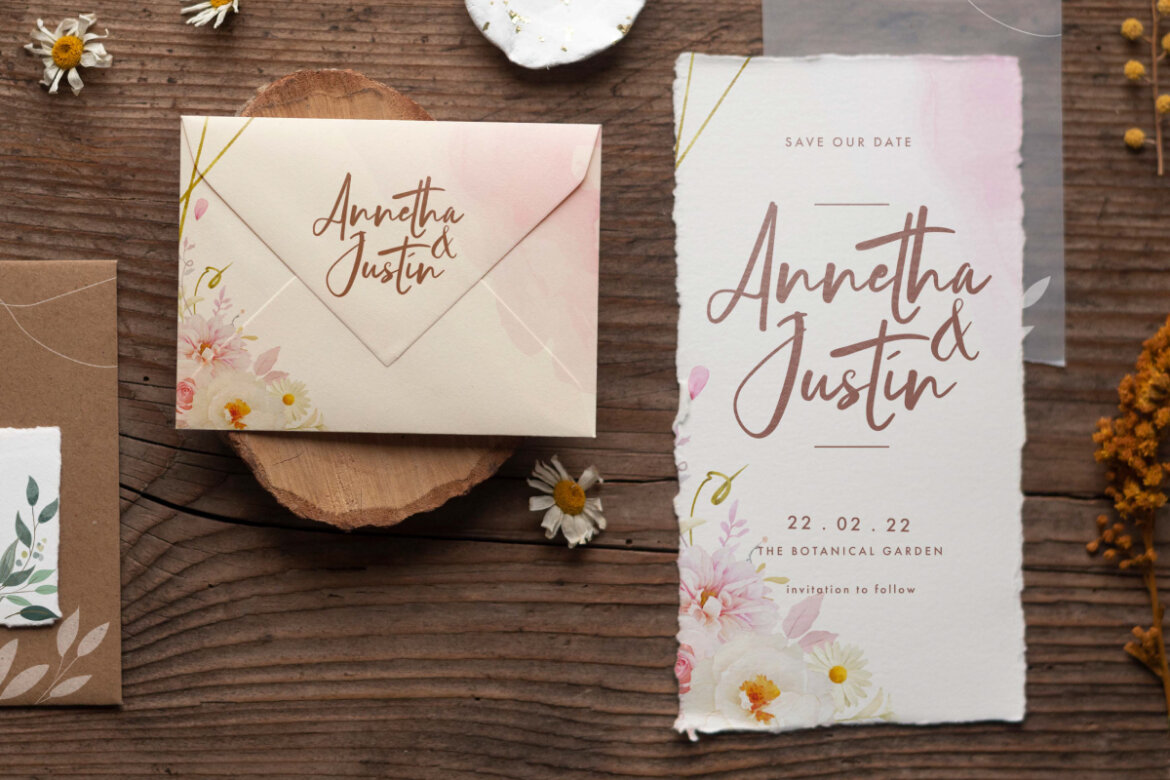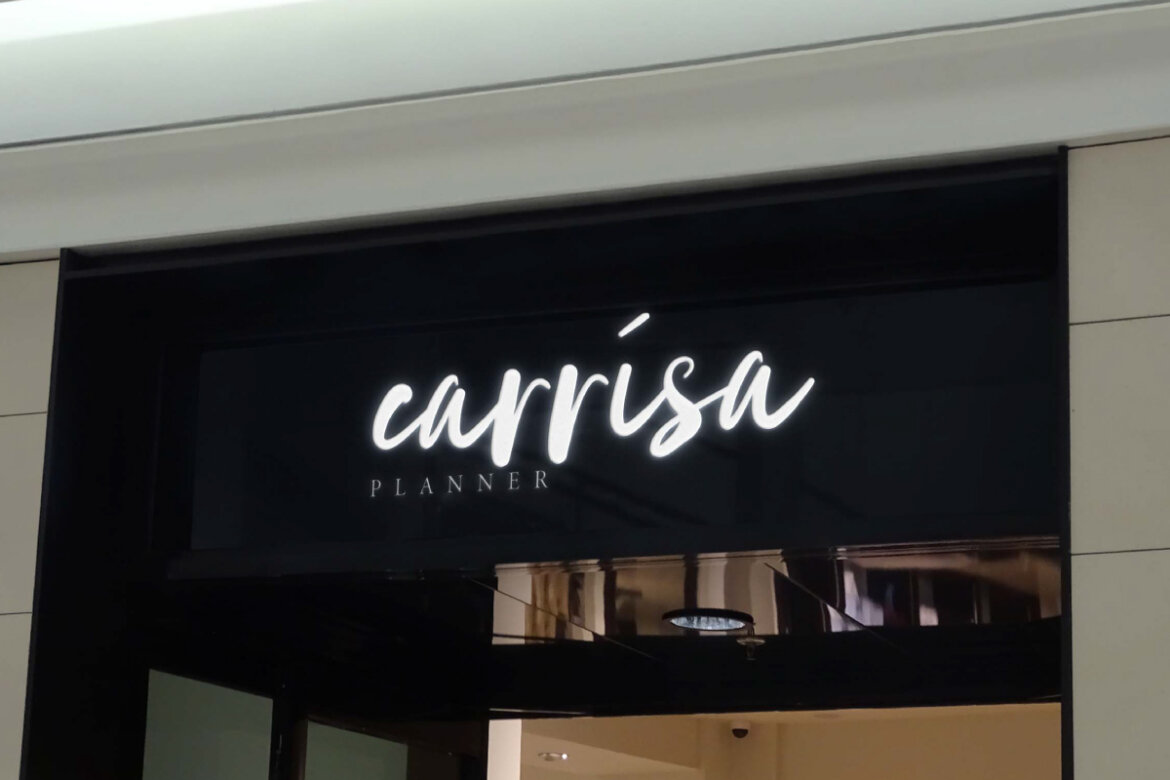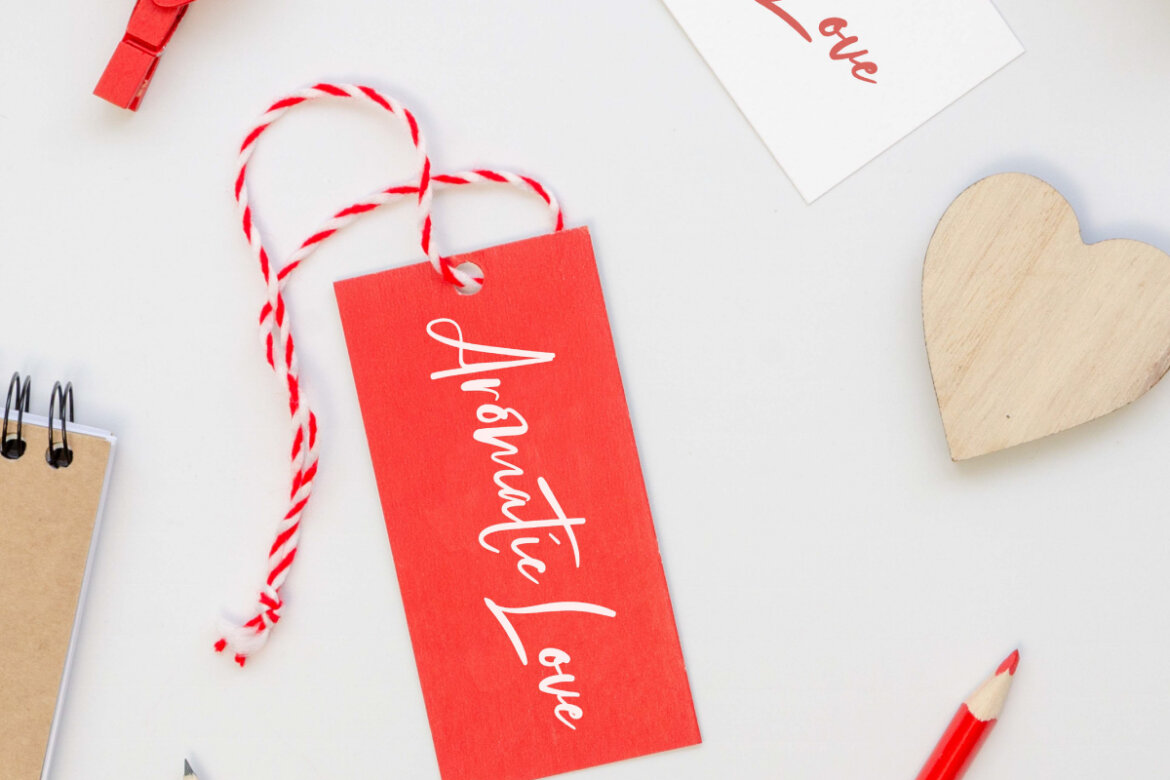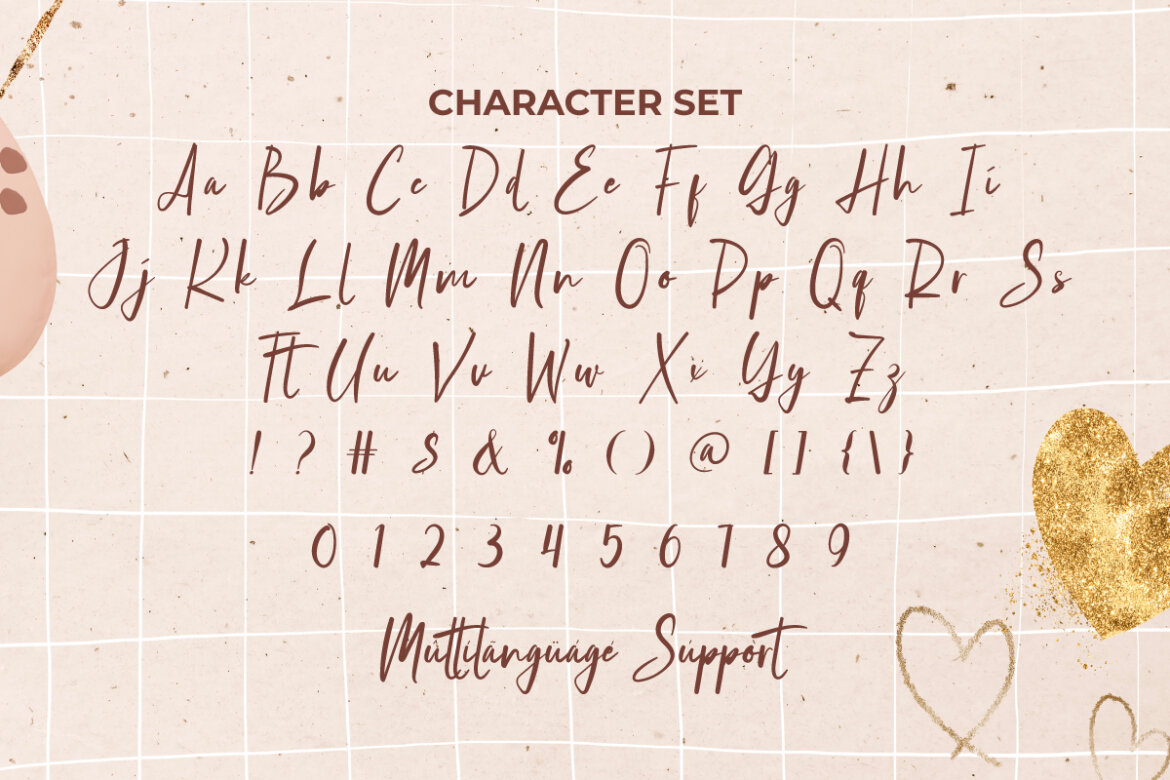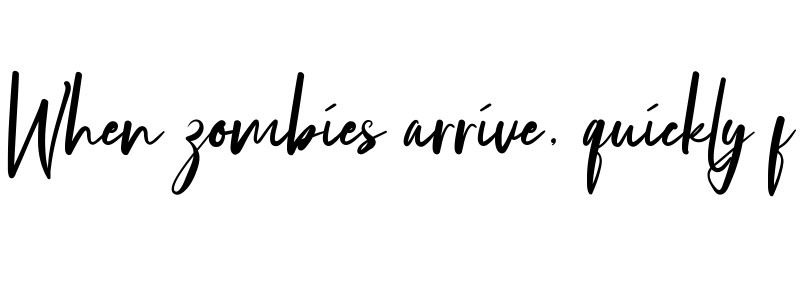
Aromatic Love FREE Font
Aromatic Love
Aromatic Love Font is a lovely elegant script font with an original handcrafted marker style using the look of stylish writing. It will be versatile for whatever creative business you’re running, such as accessories, boutique, cafeteria, craft, event organizer, florist, furniture, jewelry, printing, publishing, restaurant, skincare, spa, salon, wedding planner, writer, and anything that requires a stunning type of beautiful typography.
Aromatic Love Font is an enchanting script font that offers a natural flowing, relaxed and friendly font aesthetic. It can add a human touch to any project, such as blogs, brand logo, catalog, cover, greeting cards, header, headline, letterhead, packaging design, product labels, quote, screen print, signage, stationery, sticker, title, wedding invitation, and other projects that need a loving touch.
Aromatic Love Font comes with a full set of Uppercase and Lowercase Basic Characters, Number, a large range of Punctuation and Symbol. It is also equipped with a Ligature character which will tie two letters together to add artistry to the font. It supports multilingual characters and ready to use both on Windows machine or Mac with simple installations. It’s tested to work well in the Adobe Apps (Illustrator, Adobe InDesign, Adobe Photoshop) CorelDraw, and others. PUA Encode Characters means you can access all the characters easily – Fully accessible without additional design software.